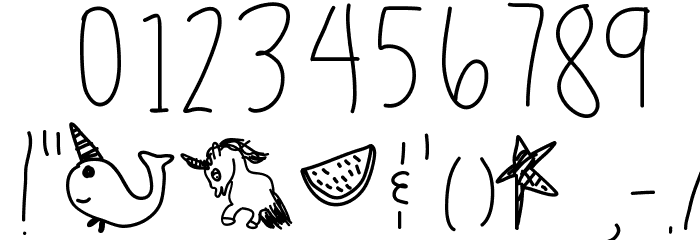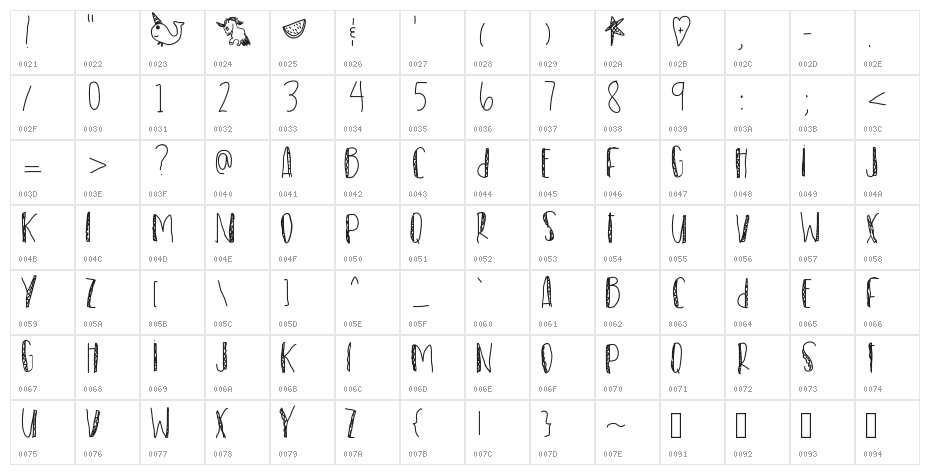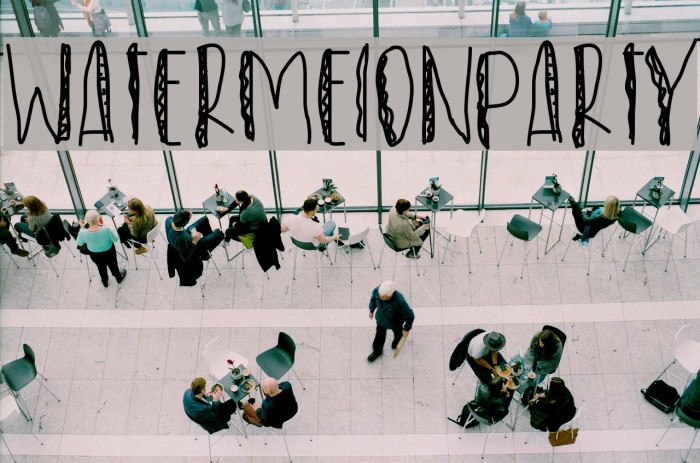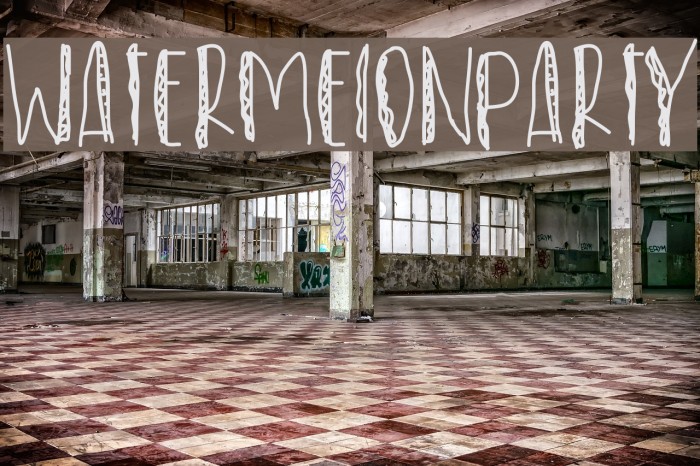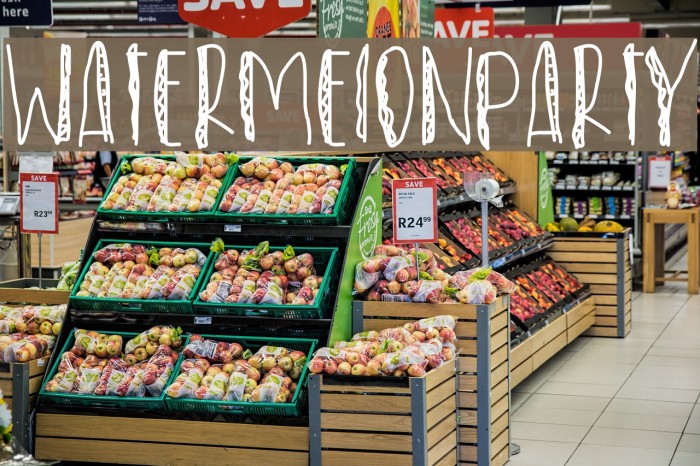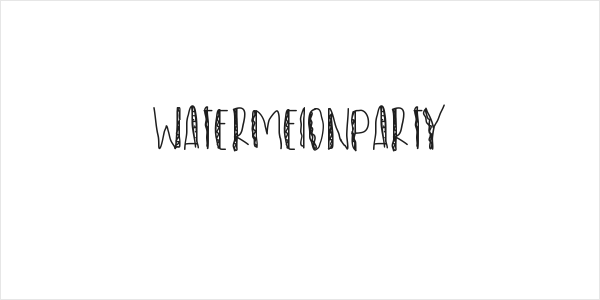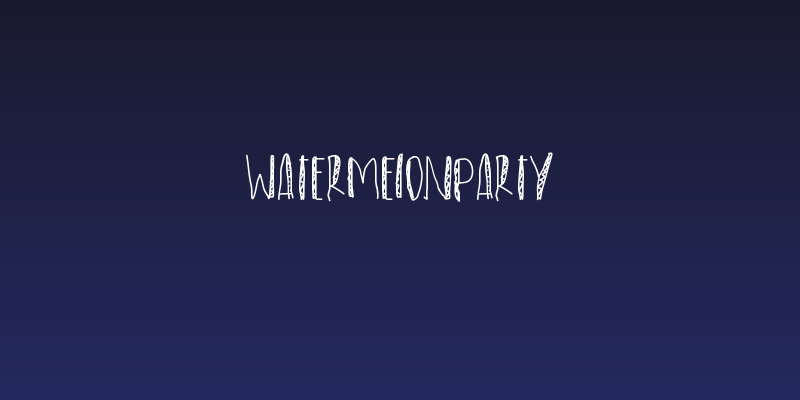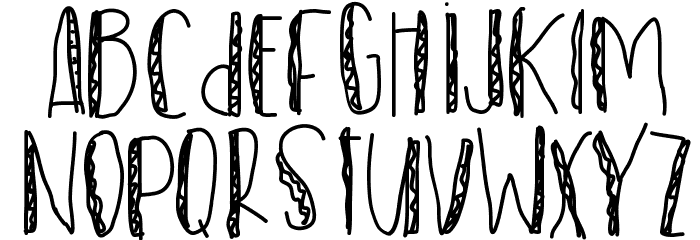
WatermelonParty Font
WatermelonParty Description
This playful and whimsical font features a hand-drawn style with a unique, decorative flair. Each letter is crafted with a sense of fun, incorporating quirky elements such as uneven lines and playful patterns within the strokes. The uppercase and lowercase letters maintain a consistent style, with tall, narrow characters that give the font a distinctive look. The numbers and special characters follow the same playful theme, making them perfect for creative projects. The font exudes a sense of joy and creativity, ideal for designs that aim to capture attention and convey a lighthearted message.
| Overall Style | Whimsical |
| Use Case | Headlines, Logos, Decorative text |
| Proposed Projects | Ideal for children's books, party invitations, greeting cards, and playful branding projects. |